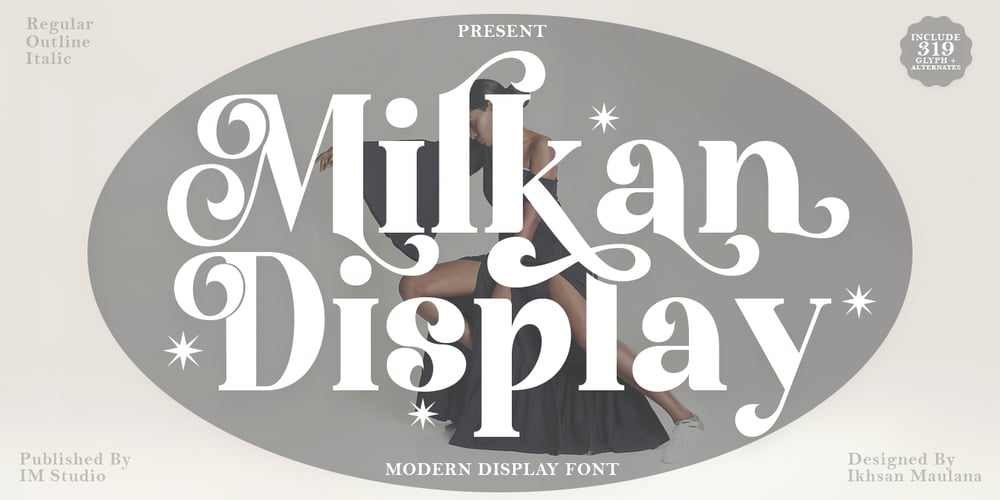
Milkan Display Font Family was designed by Ikhsan Maulana and published by IM Studio. Milkan Display contains 3 styles and family package options. Milkan Display – A modern classic serif font, perfect for creating bold & beautiful designs.Milkan Display is classic and sophisticated typography with 2 weights to captivate your next project. A very versatile font that works in both large and small sizes. This font is suitable for a wide variety of projects such as: headlines, logos, labels, branding projects, magazines, homeware designs, product packaging, mugs, quotes, posters, and more. It can also be more expressive and fun, thanks to the many alternatives and binders that combine harmoniously in this font and make it more interesting and versatile. Try to change alternatives, binders and you will get many options for your project which will make it bold & beautiful.Feature:• Full set of uppercase, lowercase• 14 Ligatures• 80 Alternatives• A wide variety of numbers, symbols & punctuation• Characters with accents• Support Multiple Languages• PUA encodedThis type of family has become the work of true love, making it as easy and fun as possible.I really hope you enjoy it!